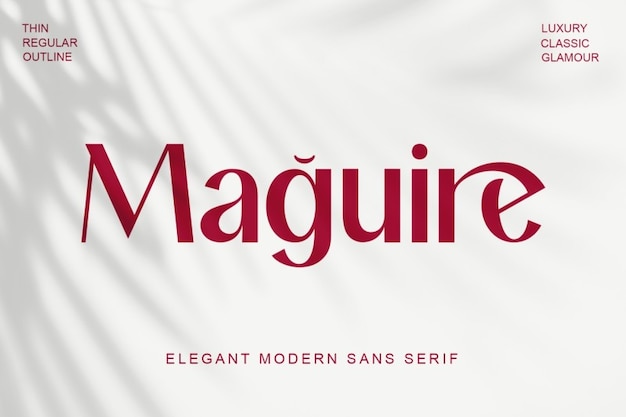
Maguire Font
Almaira Type
It is the epitome of timeless elegance. This font seamlessly blends modernity with classic charm, resulting in a luxurious and glamorous typeface. Its sleek lines and graceful curves exude sophistication, making it the ideal choice for upscale projects. With "Maguire," you can effortlessly infuse a touch of timeless beauty into your designs, ensuring they radiate elegance and leave a lasting impression.